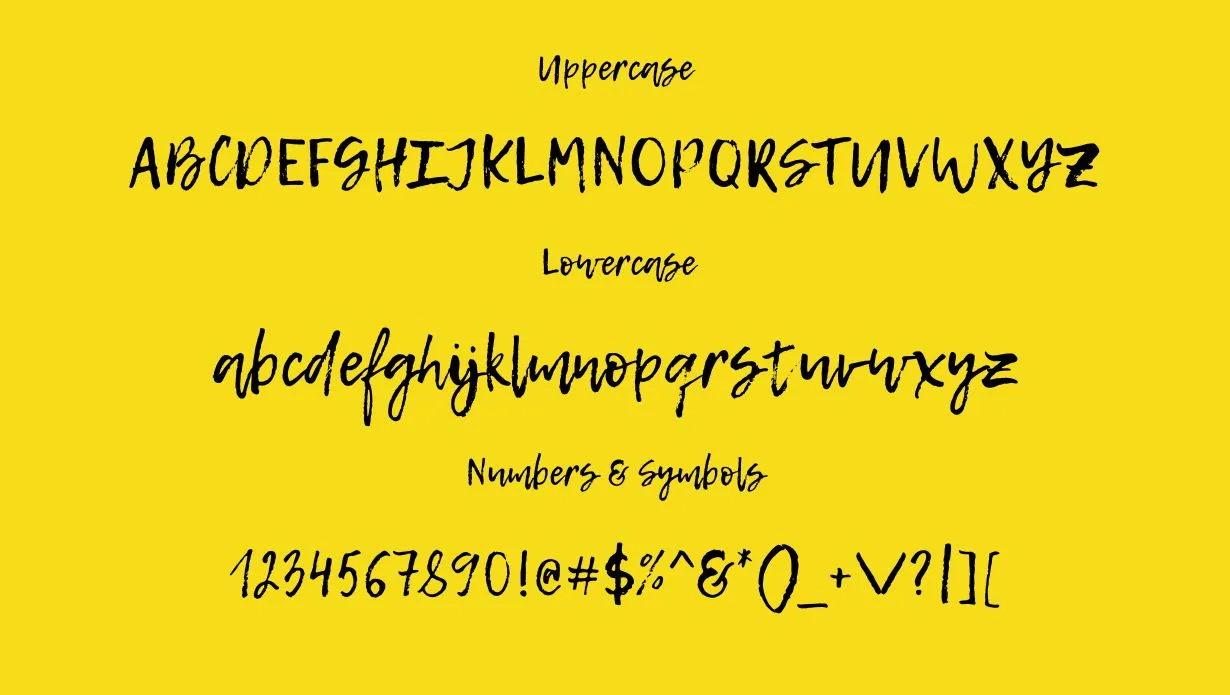
Lemon Tuesday Handwritten Font is a friendly and casual script typeface that brings a warm and approachable feel to design projects.
With its natural, handwritten appearance, it’s a popular choice for personal blogs, informal invitations, and branding materials, creating a personal and inviting atmosphere.
| Name | Lemon Tuesday Handwritten Font |
| Designer | Jovanny Lemonad |